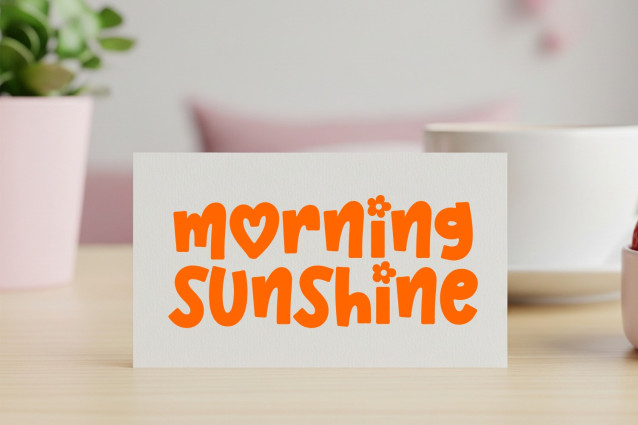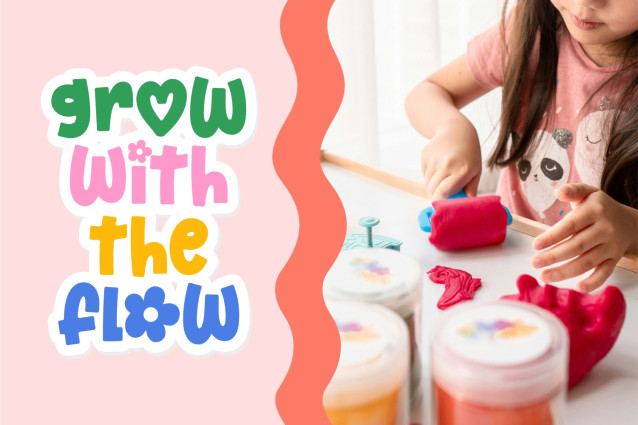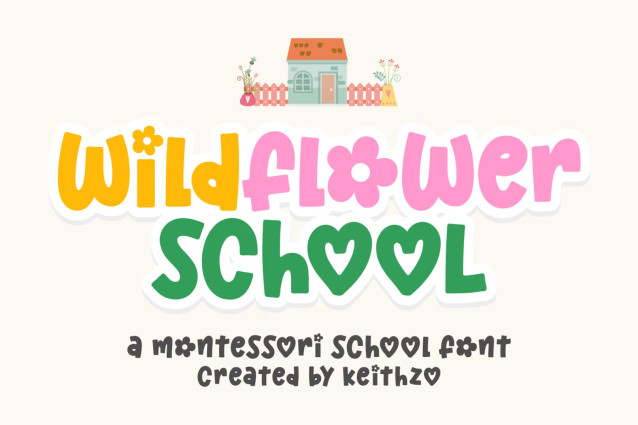
Wildflower School Font
Bring a breath of fresh, playful energy to your design projects with Wildflower School, a playful display fonts family that perfectly blends organic, handdrawn charm with professional precision. Clean, friendly, and deeply expressive, this fonts is designed to give your creative work a warm, human touch while maintaining excellent readability.
Wildflower School perfect for Educational and Classroom Resources, Kids and Toddler Branding, perfect choice for toy packaging, children’s apparel, nursery decor, and storybook layouts.
Crafting and DIY Projects, fully optimized for smooth cutting in cricut and Silhouette machines, for custom vinyls, scrapbooking, and stamp designs. Merchandise or Apparel and Digital Content Creation
Wildflower School is the ultimate design asset for creators who need a friendly, adaptable, and highly professional fonts system. Give your portfolio the upgrade it deserves and let your creativity bloom.